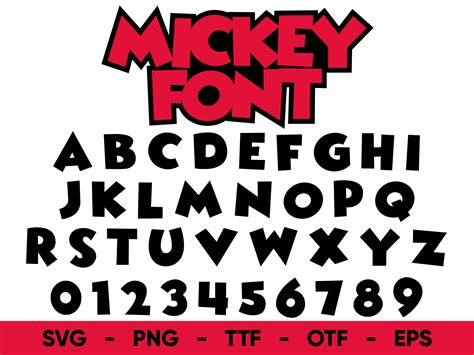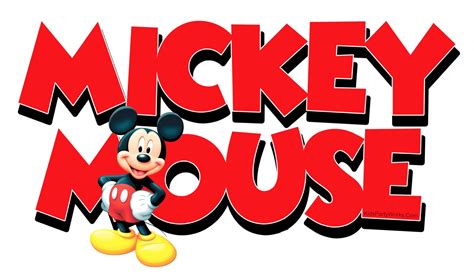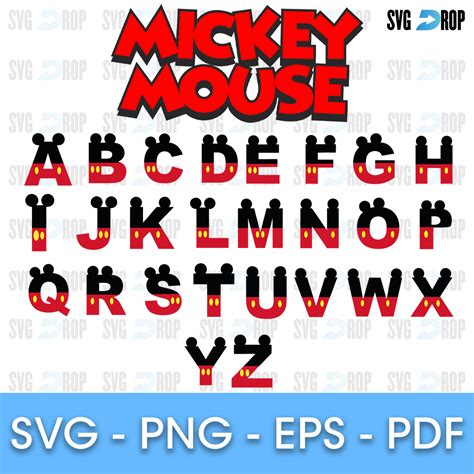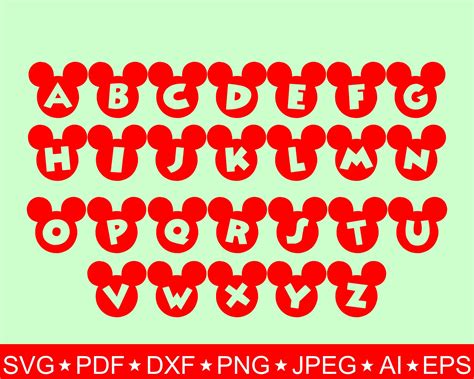
Typography plays a crucial role in design, and one of the most iconic and recognizable fonts is the Mickey Mouse Font. This font, inspired by the beloved Disney character Mickey Mouse, has a unique and playful style that captures the essence of childhood nostalgia and whimsy. Whether you're a designer looking to add a touch of magic to your projects or a fan of all things Disney, understanding the Mickey Mouse Font and its applications can be incredibly valuable.
What is the Mickey Mouse Font?
The Mickey Mouse Font is a typeface that mimics the style of the classic Disney character. It features rounded, friendly letters with a playful and approachable design. The font is often used in projects that aim to evoke a sense of fun, nostalgia, and childhood wonder. It’s particularly popular in children’s books, animated films, and various Disney-themed merchandise.
History and Evolution of the Mickey Mouse Font
The Mickey Mouse Font has a rich history that dates back to the early days of Disney. The character Mickey Mouse was created by Walt Disney in 1928, and his distinctive design has been a staple of Disney’s branding ever since. Over the years, the font has evolved to keep up with modern design trends while retaining its classic charm. The font’s design has been adapted for various media, including print, digital, and even merchandise.
Characteristics of the Mickey Mouse Font
The Mickey Mouse Font is known for its unique characteristics that set it apart from other typefaces. Some of the key features include:
- Rounded Letters: The font features rounded, soft edges that give it a friendly and approachable look.
- Playful Design: The letters often have playful elements, such as small ears or other Disney-inspired details.
- Versatility: Despite its whimsical nature, the font can be used in a variety of contexts, from children’s books to adult-themed projects.
- Nostalgic Appeal: The font evokes a sense of nostalgia, making it a popular choice for projects that aim to capture the spirit of childhood.
Applications of the Mickey Mouse Font
The Mickey Mouse Font is incredibly versatile and can be used in a wide range of applications. Here are some of the most common uses:
- Children’s Books: The font’s playful and approachable design makes it perfect for children’s books, where it can help create a fun and engaging reading experience.
- Animated Films: The font is often used in animated films to create a cohesive and recognizable visual style.
- Merchandise: Disney-themed merchandise, such as t-shirts, mugs, and toys, often feature the Mickey Mouse Font to enhance their appeal.
- Branding: Companies looking to evoke a sense of fun and nostalgia may use the font in their branding materials.
- Educational Materials: The font can be used in educational materials to make learning more engaging and enjoyable for children.
Designing with the Mickey Mouse Font
When designing with the Mickey Mouse Font, there are several tips and best practices to keep in mind:
- Pairing with Other Fonts: The Mickey Mouse Font pairs well with other playful and whimsical fonts. Consider using it alongside fonts that have a similar nostalgic appeal.
- Color Schemes: Bright and vibrant colors work well with the Mickey Mouse Font. Think about using colors that evoke a sense of fun and excitement.
- Layout and Spacing: Ensure that the font is used in a way that maintains readability. Avoid overcrowding the design with too much text.
- Consistency: Use the font consistently throughout your design to create a cohesive and recognizable visual style.
Creating Your Own Mickey Mouse Font
If you’re feeling creative, you can even design your own version of the Mickey Mouse Font. Here are some steps to get you started:
- Sketch Your Design: Start by sketching out your design on paper. Think about the unique characteristics you want to include, such as rounded letters and playful details.
- Digitize Your Design: Use graphic design software like Adobe Illustrator or CorelDRAW to digitize your sketch. This will allow you to refine your design and make any necessary adjustments.
- Refine and Test: Refine your design by testing it in different contexts. Make sure it looks good in both print and digital formats.
- Export and Share: Once you’re satisfied with your design, export it as a font file and share it with others.
💡 Note: Creating your own font can be a complex process, so be prepared to spend time refining your design and testing it in various contexts.
Popular Alternatives to the Mickey Mouse Font
While the Mickey Mouse Font is iconic, there are several other fonts that offer a similar playful and whimsical style. Here are some popular alternatives:
| Font Name | Description |
|---|---|
| Comic Sans | A casual, informal font that is often used in children’s books and educational materials. |
| Curlz | A playful font with curly, flowing letters that evoke a sense of fun and whimsy. |